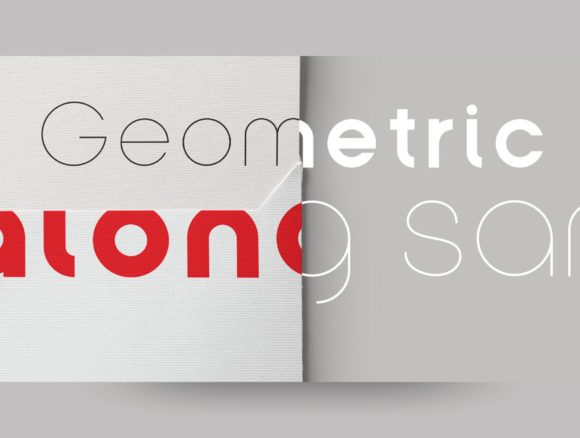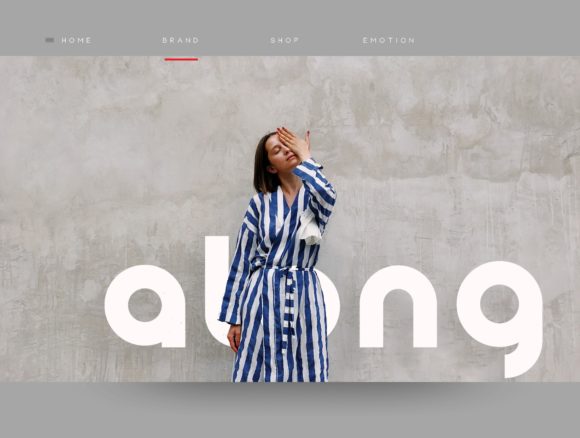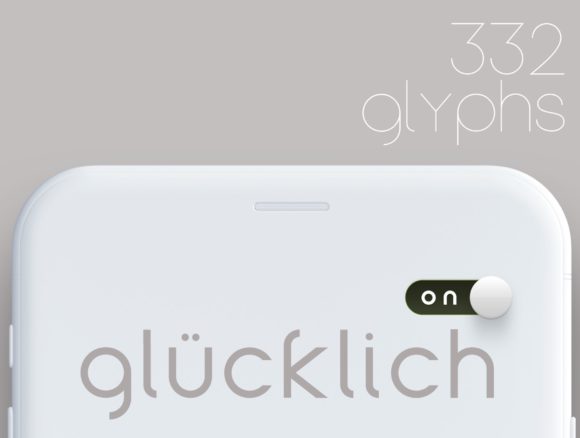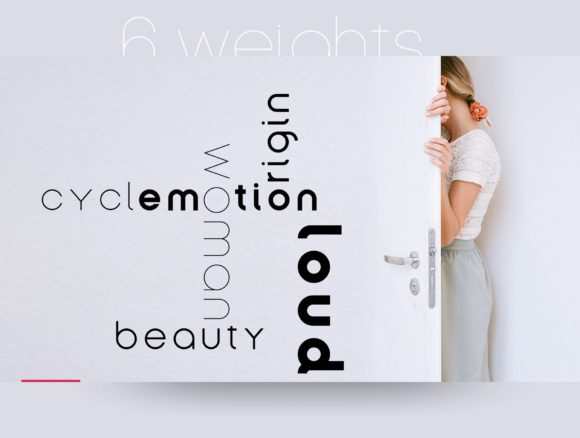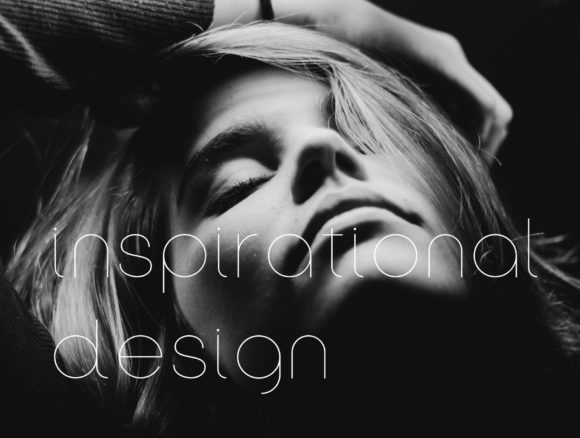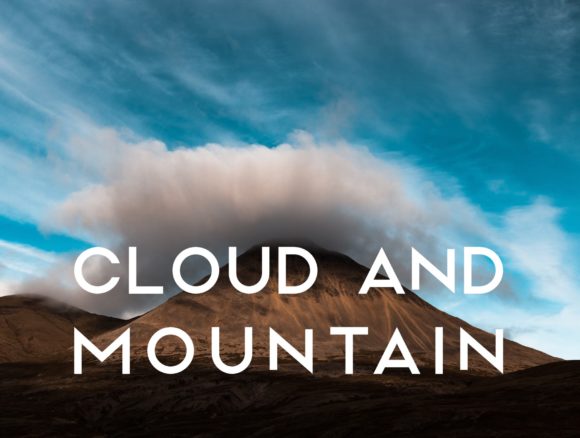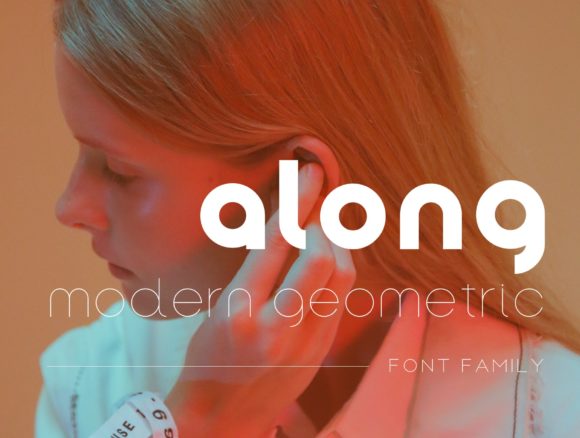
Discover the Elegance of Along Font: A Perfect Blend of Curves and Geometry
When it comes to typography, the right font can elevate your design and make it truly unforgettable. For designers and crafters looking for a font that combines beauty, simplicity, and geometric style, Along Font is an excellent choice. As described, Along is designed to showcase beautiful curves and simplicity while remaining true to its geometric style. This article will delve into the features, benefits, and uses of Along Font, making it a comprehensive guide for anyone looking to enhance their typography.
The Unique Features of Along Font
Along Font stands out in the world of typography due to its unique blend of geometric simplicity and elegant curves. Here are some of its key features:
- Geometric Style: Along Font maintains a geometric style that gives it a modern and clean look. This makes it perfect for designs that require a contemporary feel.
- Beautiful Curves: The font incorporates beautiful curves that add a touch of elegance and sophistication. These curves ensure that the font remains stylish and eye-catching.
- Simplicity: Despite its elegant curves, Along Font remains simple and easy to read. This balance of form and function makes it versatile for various design projects.
Benefits of Using Along Font
For designers and crafters, choosing the right font can significantly impact the success of a project. Here are some benefits of using Along Font:
- Versatility: Along Font’s unique combination of geometric style and elegant curves makes it suitable for a wide range of design projects, from branding and advertising to packaging and digital media.
- Readability: The simplicity of Along Font ensures that it remains highly readable, even at smaller sizes. This is particularly important for designs that require a lot of text.
- Aesthetic Appeal: The beautiful curves and geometric style of Along Font add an aesthetic appeal to any design. This can help make your project stand out and leave a lasting impression.
Uses of Along Font
Along Font’s versatility makes it suitable for various design projects. Here are some popular uses:
- Branding: Use Along Font to create a strong and modern brand identity. Its unique style can help your brand stand out in a crowded market.
- Advertising: The elegant curves and geometric style of Along Font make it perfect for advertising materials, such as posters, flyers, and billboards.
- Packaging: Along Font can add a touch of sophistication to product packaging. Its readability ensures that product information is clear and easy to read.
- Digital Media: For digital projects, such as website design, social media graphics, and email newsletters, Along Font can add a modern and elegant touch.
Tips for Using Along Font Effectively
To get the most out of Along Font, consider the following tips:
- Pair with Complementary Fonts: Along Font pairs well with other geometric and sans-serif fonts. Experiment with different combinations to find the perfect match for your project.
- Adjust Font Sizes: To create visual hierarchy, adjust font sizes to emphasize important information. Along Font remains readable at various sizes, making it ideal for headings and body text.
- Experiment with Colors: The simplicity and elegance of Along Font make it suitable for various color schemes. Experiment with different colors to find the perfect combination that matches your brand or design.
| Font Name | Along Font |
| Author | Brenners Template |
Along Font is a versatile and elegant typeface that combines geometric style with beautiful curves. Its simplicity, readability, and aesthetic appeal make it an excellent choice for designers and crafters looking to enhance their typography. Whether you’re working on a branding project, advertising materials, packaging, or digital media, Along Font can help you create a lasting impression. By understanding its features, benefits, and uses, you can effectively incorporate Along Font into your design projects and take your typography to the next level.